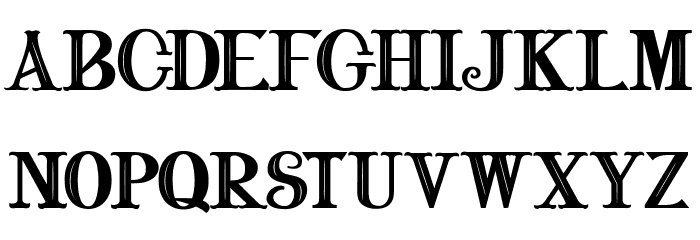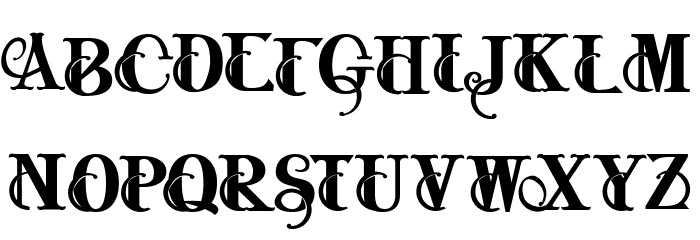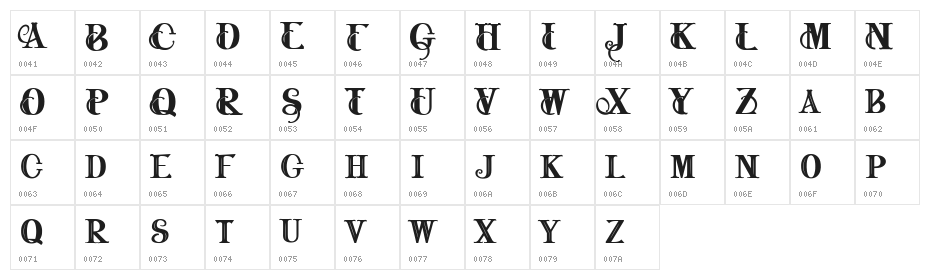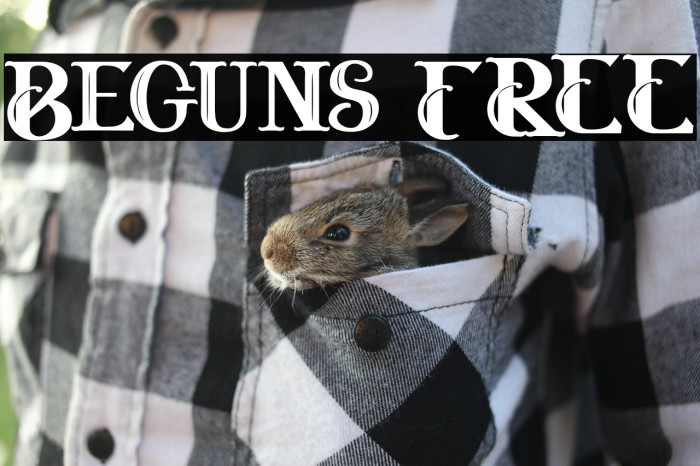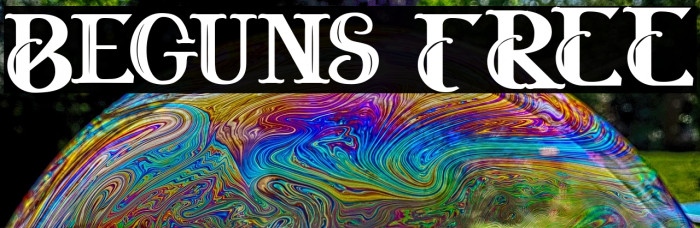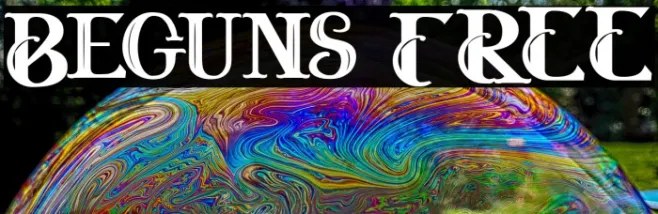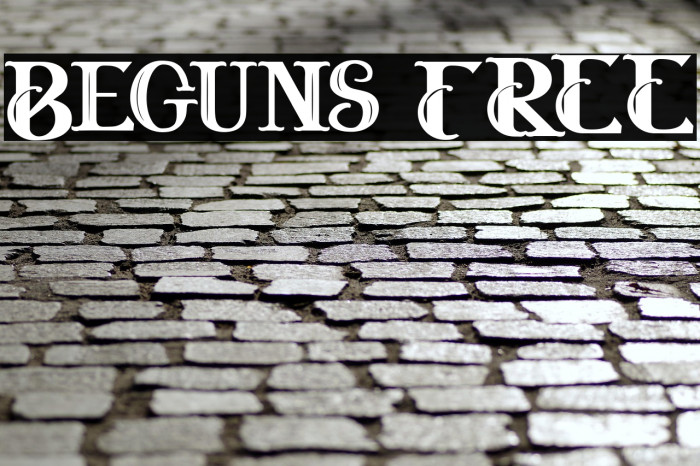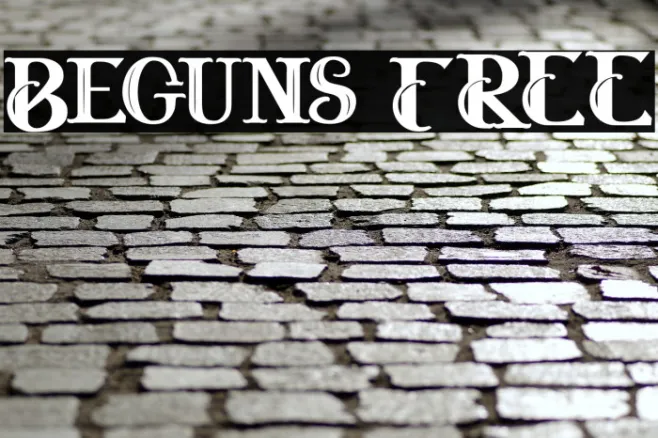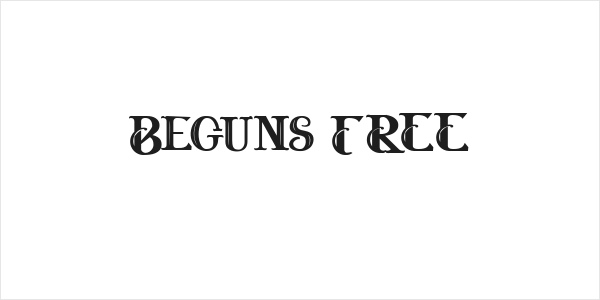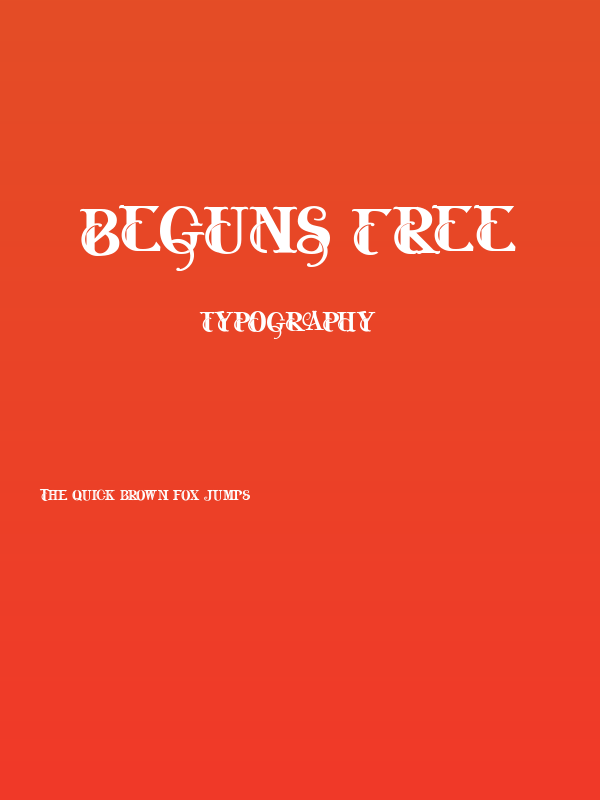
Beguns FREE Font
This font features a bold and decorative style with intricate swirls and flourishes that add a unique flair to each character. The uppercase letters are particularly ornate, with exaggerated serifs and embellishments that give the font a dramatic and eye-catching appearance. The overall design is reminiscent of vintage or Victorian-era typography, making it ideal for projects that require a touch of elegance and sophistication. The characters are well-balanced, with consistent stroke widths that maintain readability despite the decorative elements.
A bold, decorative font with ornate swirls and vintage flair.
- Proposed Projects: Ideal for wedding invitations, vintage-themed posters, branding for luxury products, and decorative signage.
- Overall Style: Vintage